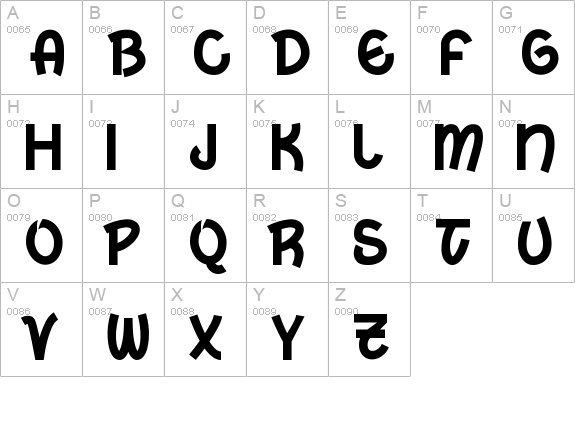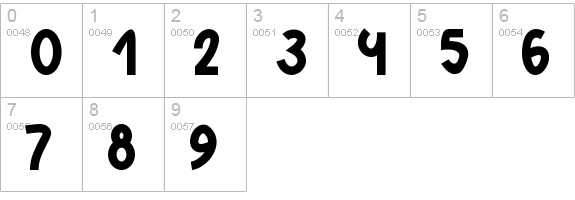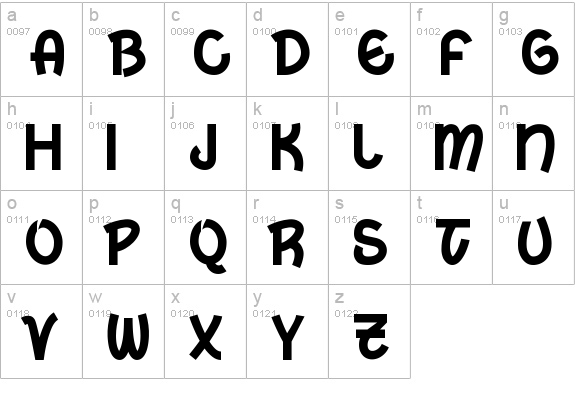
Marela Font Details
Introducing Marela, a stunning and versatile font that is bound to captivate and elevate any design project. With its elegant and modern aesthetic, Marela effortlessly combines a sense of sophistication with a touch of playfulness. This beautifully crafted typeface is perfect for a wide range of applications, from branding and logo design to headlines, packaging, and more. Its clean lines and balanced proportions make it highly legible, ensuring that your message is conveyed with clarity and impact. Marela is designed with meticulous attention to detail, resulting in a font that exudes professionalism and refinement. Its extensive character set includes ligatures, alternates, and stylistic variations, allowing for endless creative possibilities and ensuring that your designs truly stand out. What sets Marela apart is not only its exceptional design but also its accessibility. We are pleased to announce that Marela is available as a free download exclusively at FontsMarket.com. This means that you can easily obtain this remarkable font without any restrictions, allowing you to experiment and incorporate it into your projects with ease. Whether you are a seasoned designer or just starting out, Marela is a valuable addition to your font collection. Its versatility and timeless appeal make it a go-to choice for designers worldwide. So why wait? Download Marela today and unlock a world of creative possibilities.